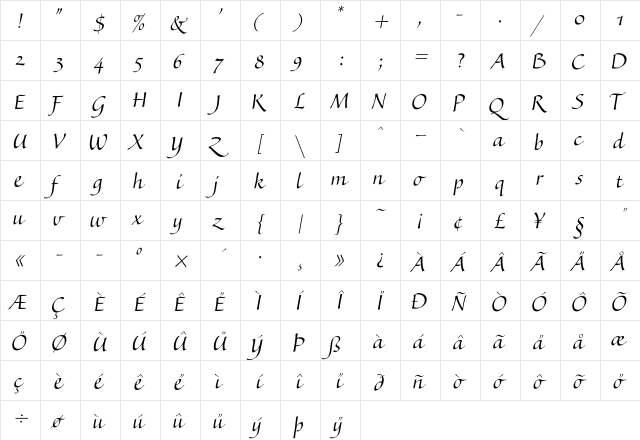
Boscribe Regular
Design Context for Boscribe Typeface
Boscribe takes a measured approach to typography — its balanced proportions and neutral character make it a reliable workhorse for both digital and print work.
Pro Tip: Use Boscribe in both headline and body roles to test its range before committing to a single application.